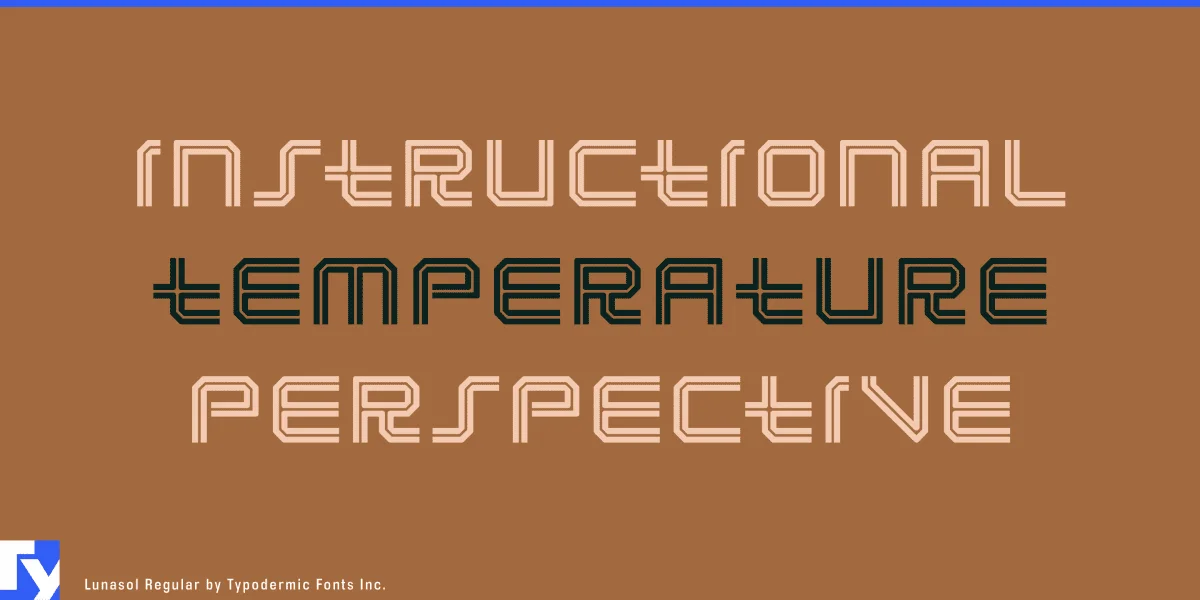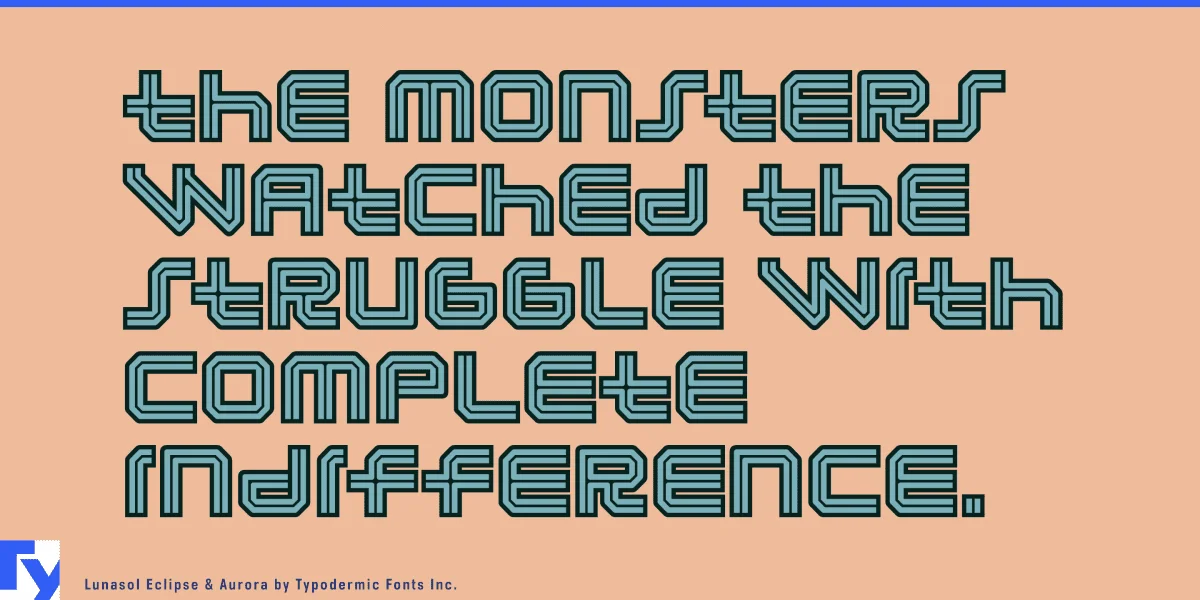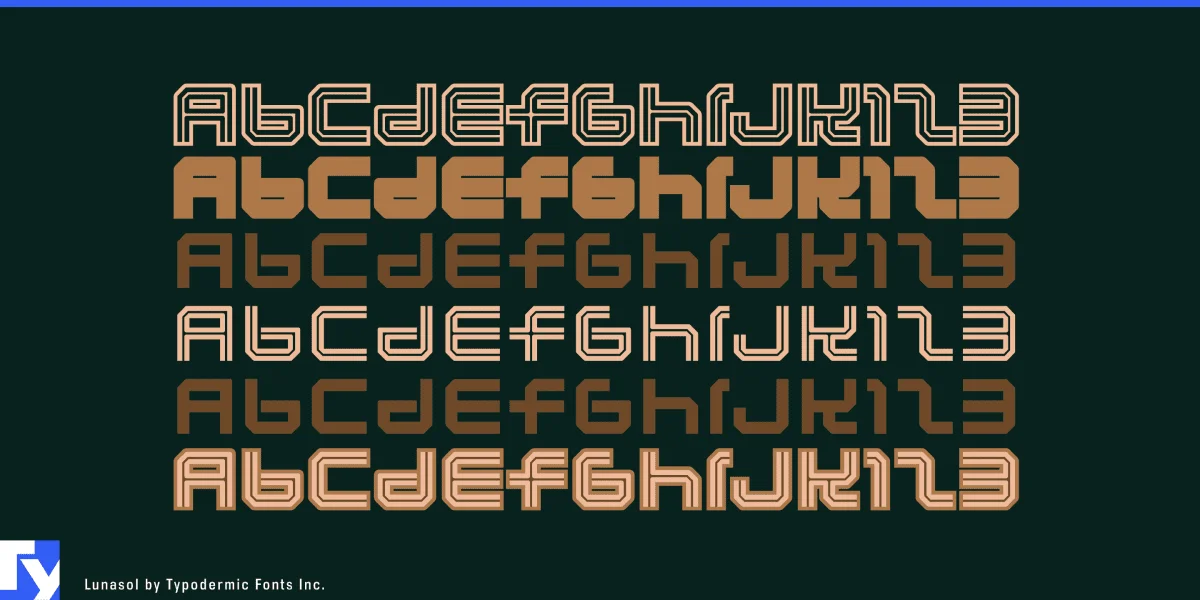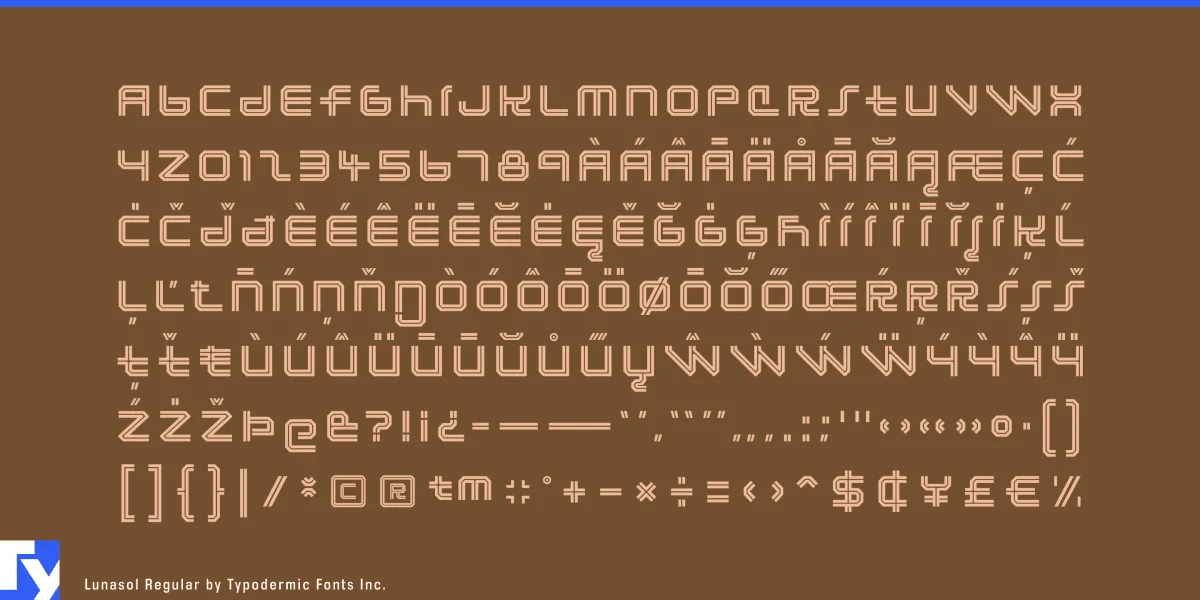
Lunasol is a factory-made, mechanical headline typeface. Experiment with overlapping different layers in assorted color schemes. For a more interesting aesthetic, experiment with offsets. Most Latin-based European writing systems are supported, including the following languages. Afaan Oromo, Afar, Afrikaans, Albanian, Alsatian, Aromanian, Aymara, Bashkir (Latin), Basque, Belarusian (Latin), Bemba, Bikol, Bosnian, Breton, Cape Verdean, Creole, Catalan, Cebuano, Chamorro, Chavacano, Chichewa, Crimean Tatar (Latin), Croatian, Czech, Danish, Dawan, Dholuo, Dutch, English, Estonian, Faroese, Fijian, Filipino, Finnish, French, Frisian, Friulian, Gagauz (Latin), Galician, Ganda, Genoese, German, Greenlandic, Guadeloupean Creole, Haitian Creole, Hawaiian, Hiligaynon, Hungarian, Icelandic, Ilocano, Indonesian, Irish, Italian, Jamaican, Kaqchikel, Karakalpak (Latin), Kashubian, Kikongo, Kinyarwanda, Kirundi, Kurdish (Latin), Latvian, Lithuanian, Lombard, Low Saxon, Luxembourgish, Maasai, Makhuwa, Malay, Maltese, Māori, Moldovan, Montenegrin, Ndebele, Neapolitan, Norwegian, Novial, Occitan, Ossetian (Latin), Papiamento, Piedmontese, Polish, Portuguese, Quechua, Rarotongan, Romanian, Romansh, Sami, Sango, Saramaccan, Sardinian, Scottish Gaelic, Serbian (Latin), Shona, Sicilian, Silesian, Slovak, Slovenian, Somali, Sorbian, Sotho, Spanish, Swahili, Swazi, Swedish, Tagalog, Tahitian, Tetum, Tongan, Tshiluba, Tsonga, Tswana, Tumbuka, Turkish, Turkmen (Latin), Tuvaluan, Uzbek (Latin), Venetian, Vepsian, Võro, Walloon, Waray-Waray, Wayuu, Welsh, Wolof, Xhosa, Yapese, Zapotec Zulu and Zuni.